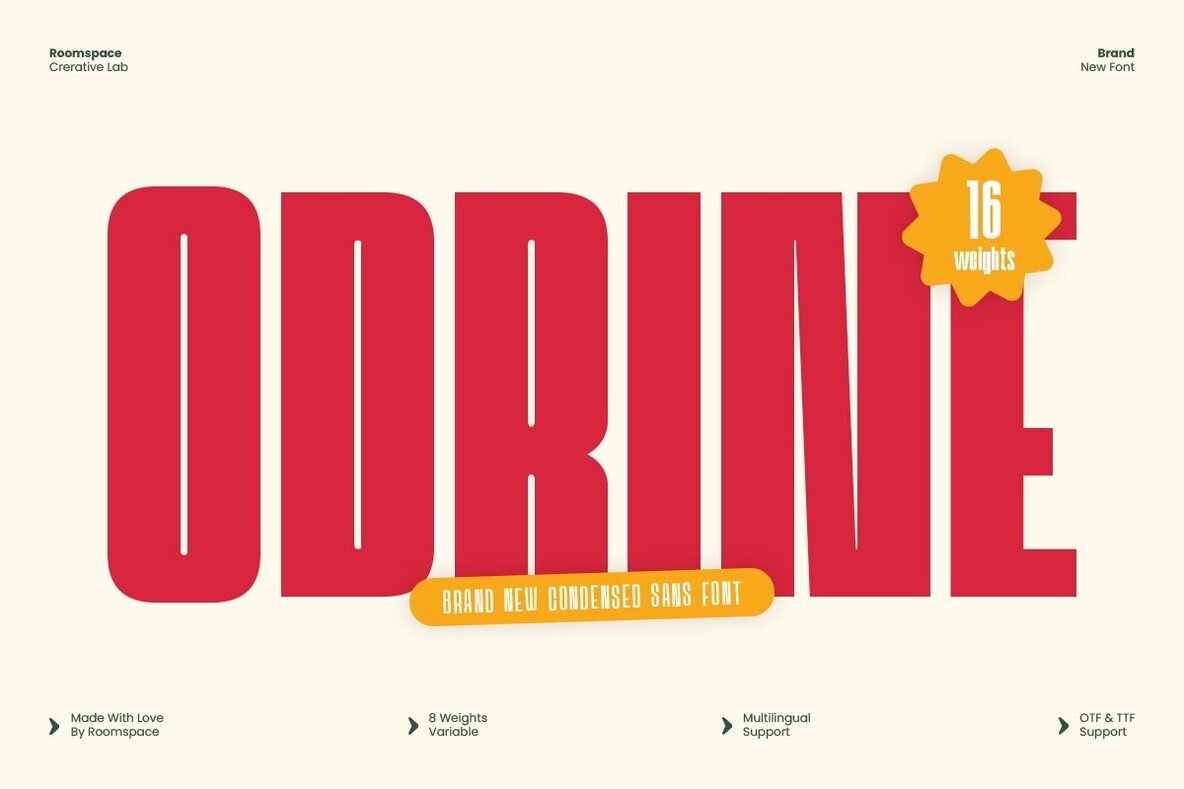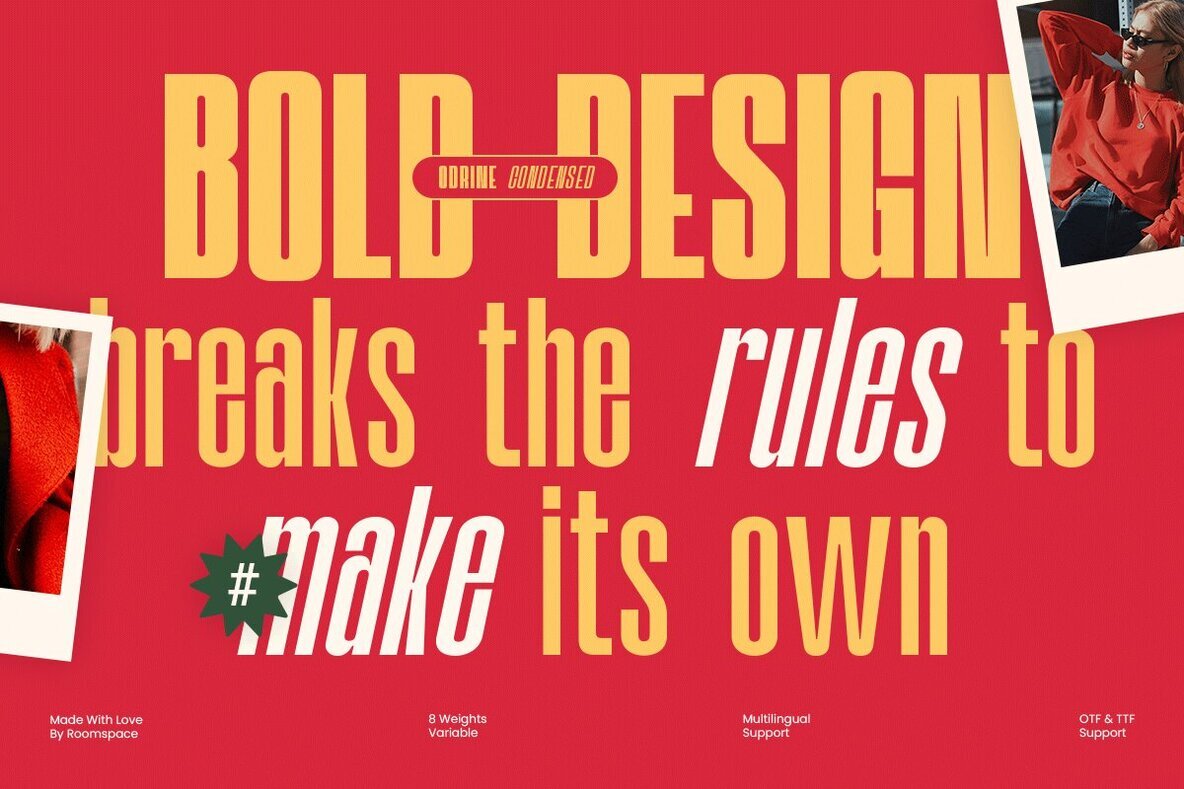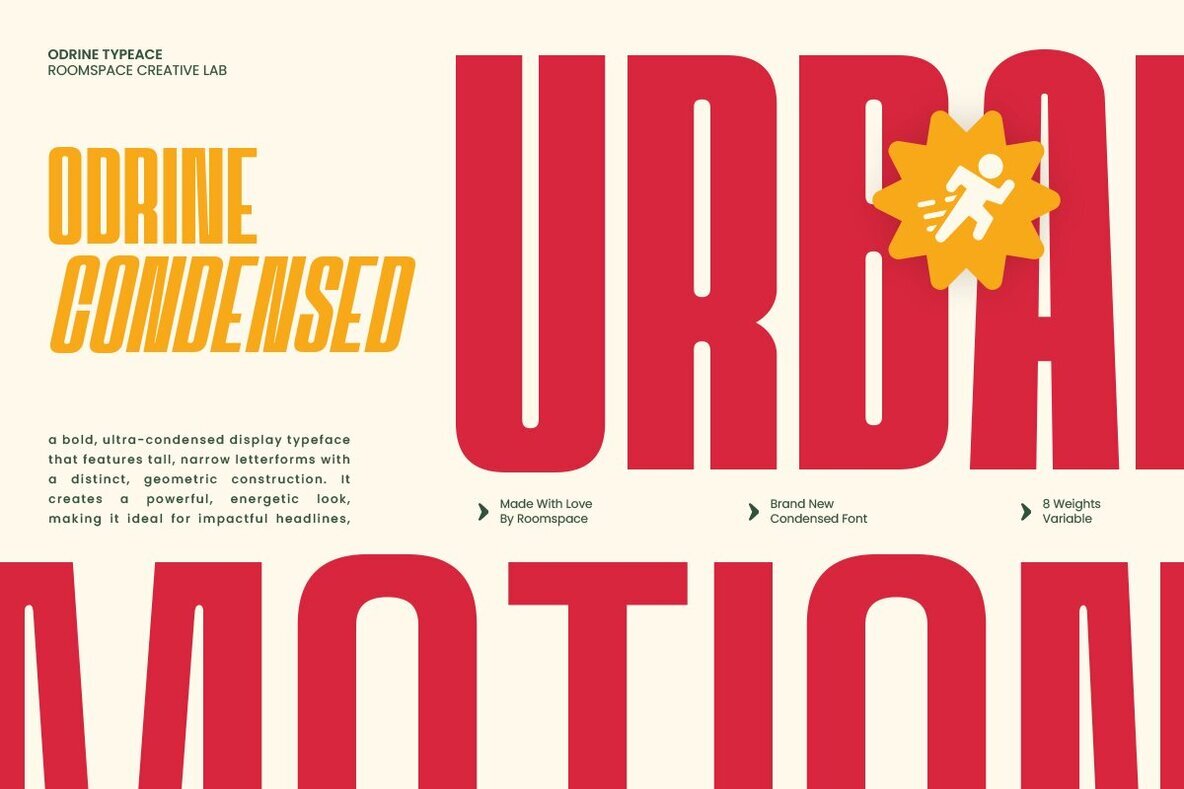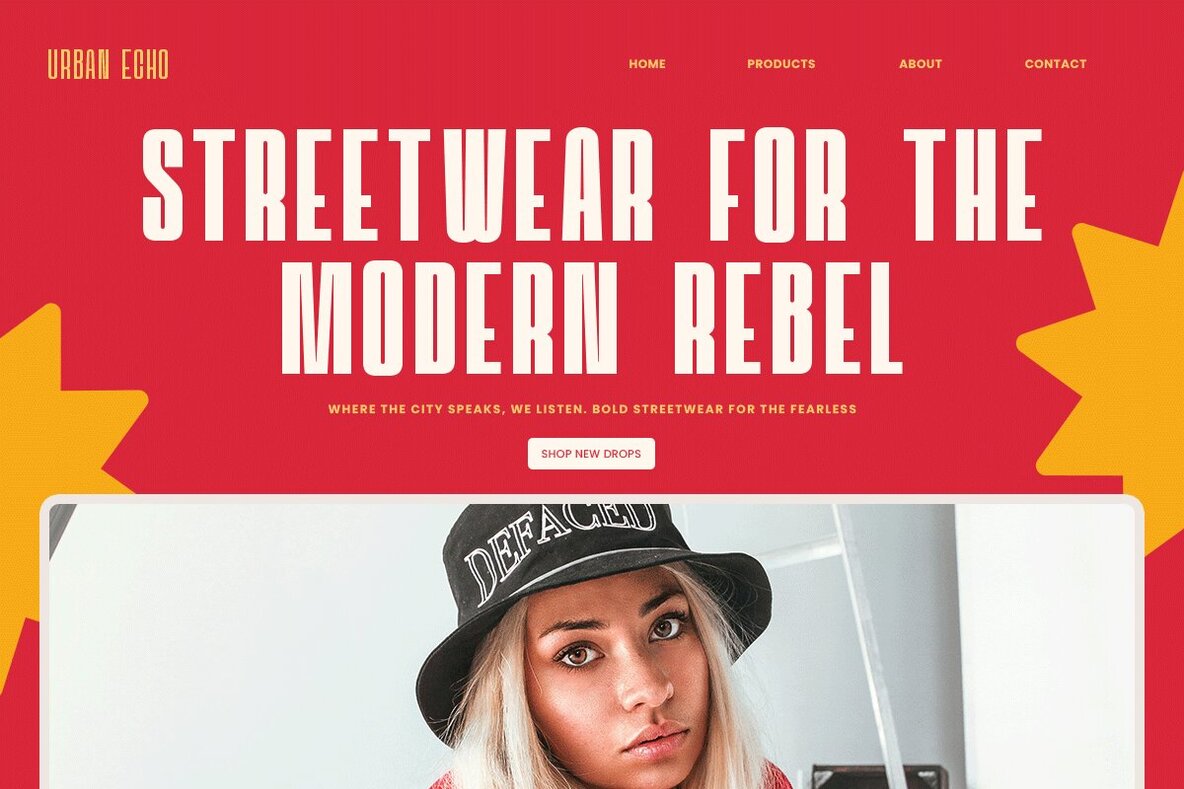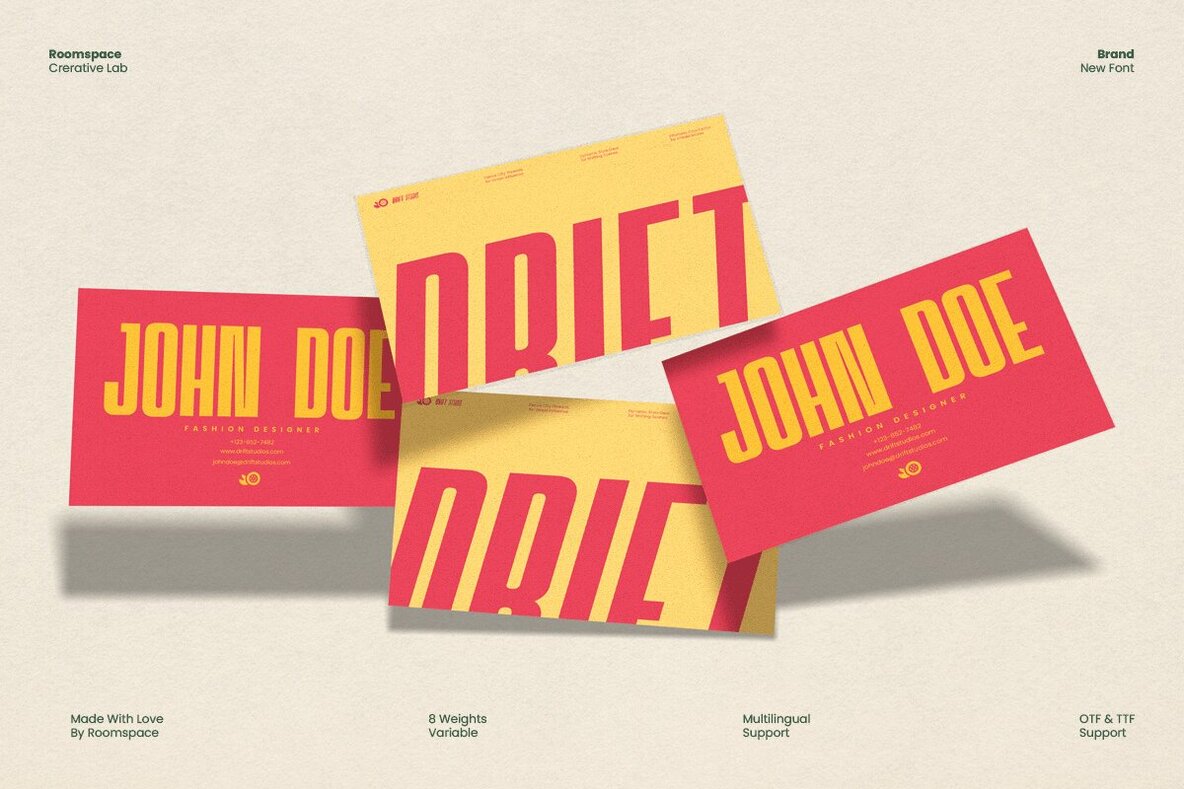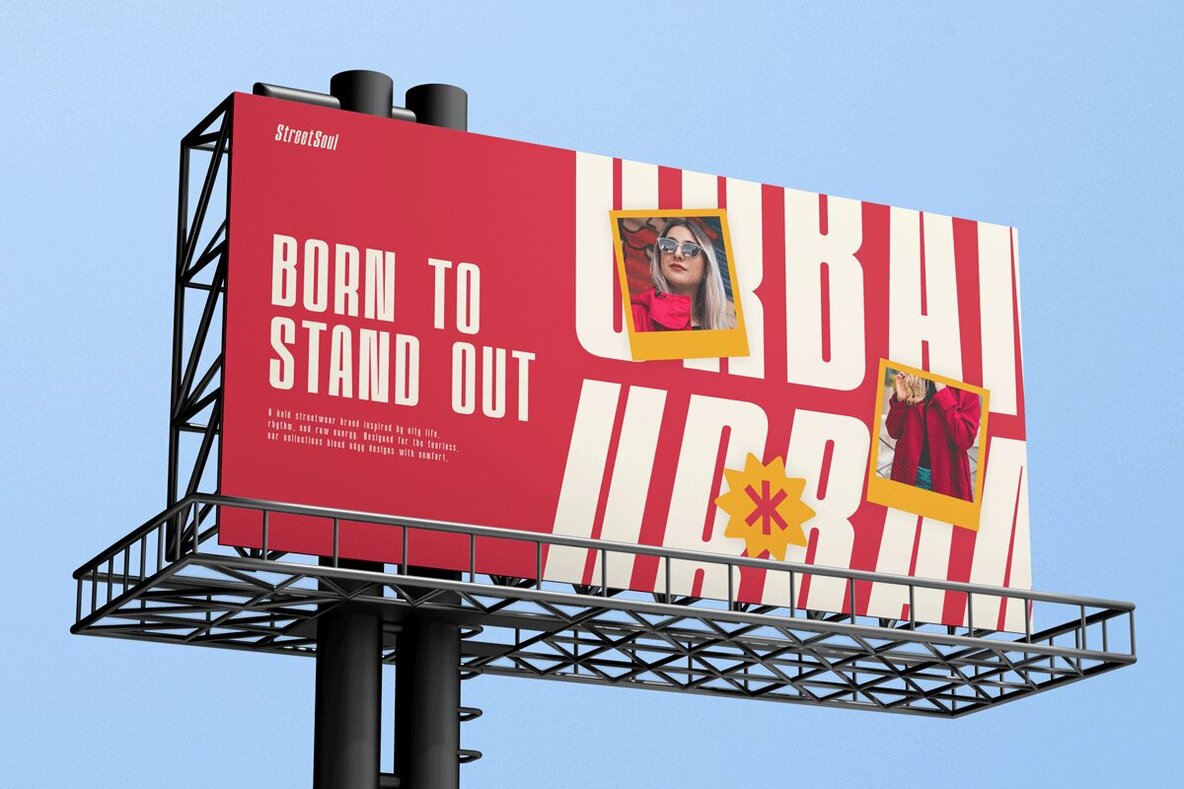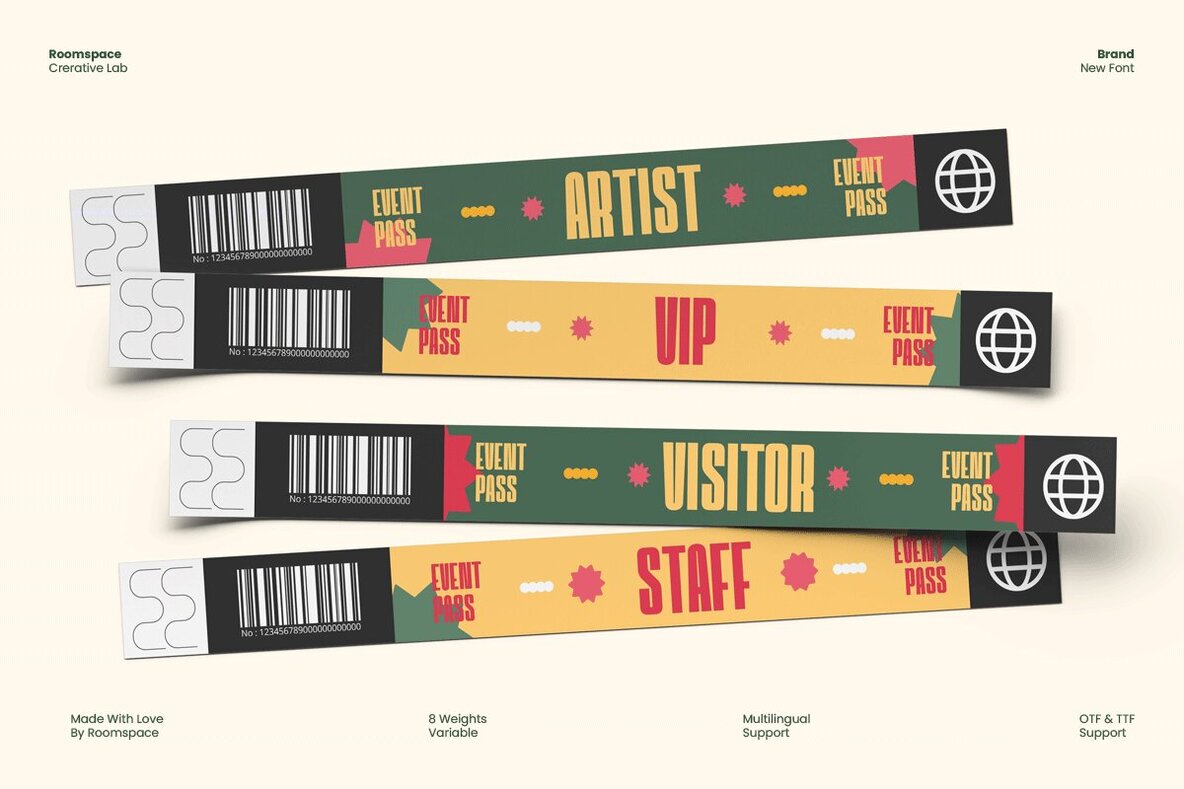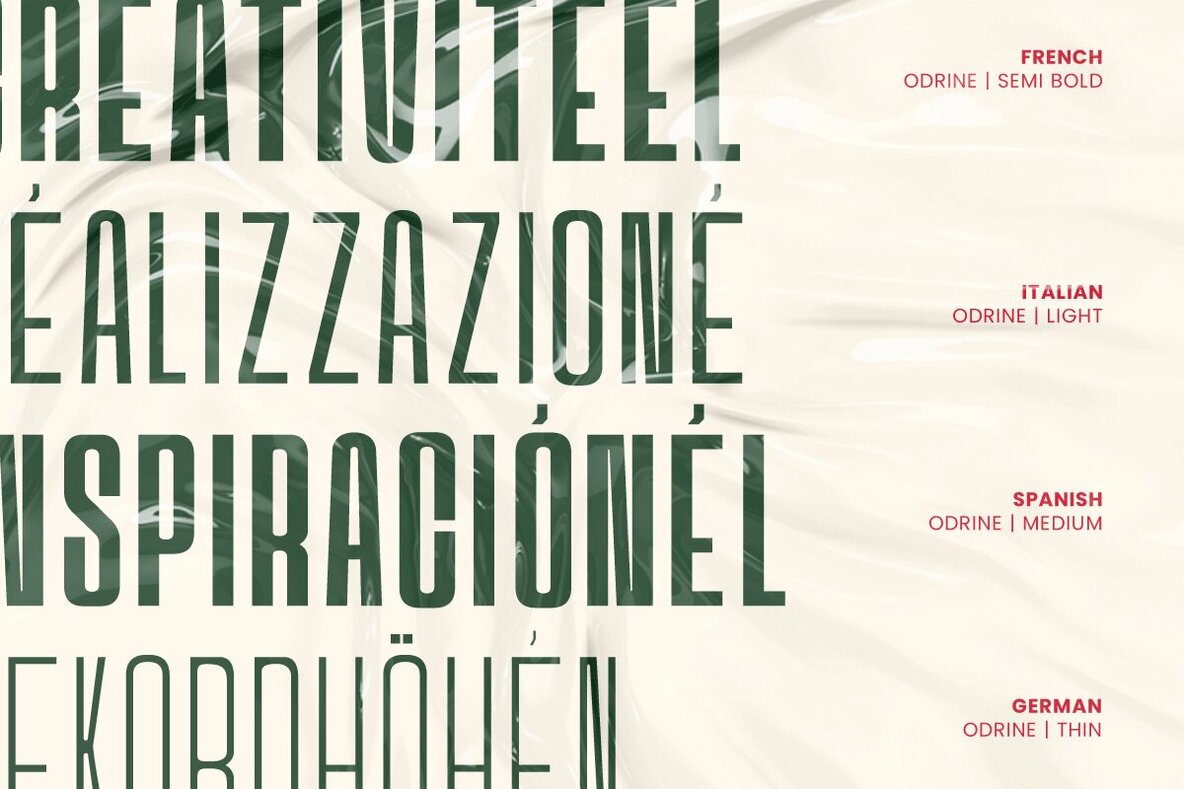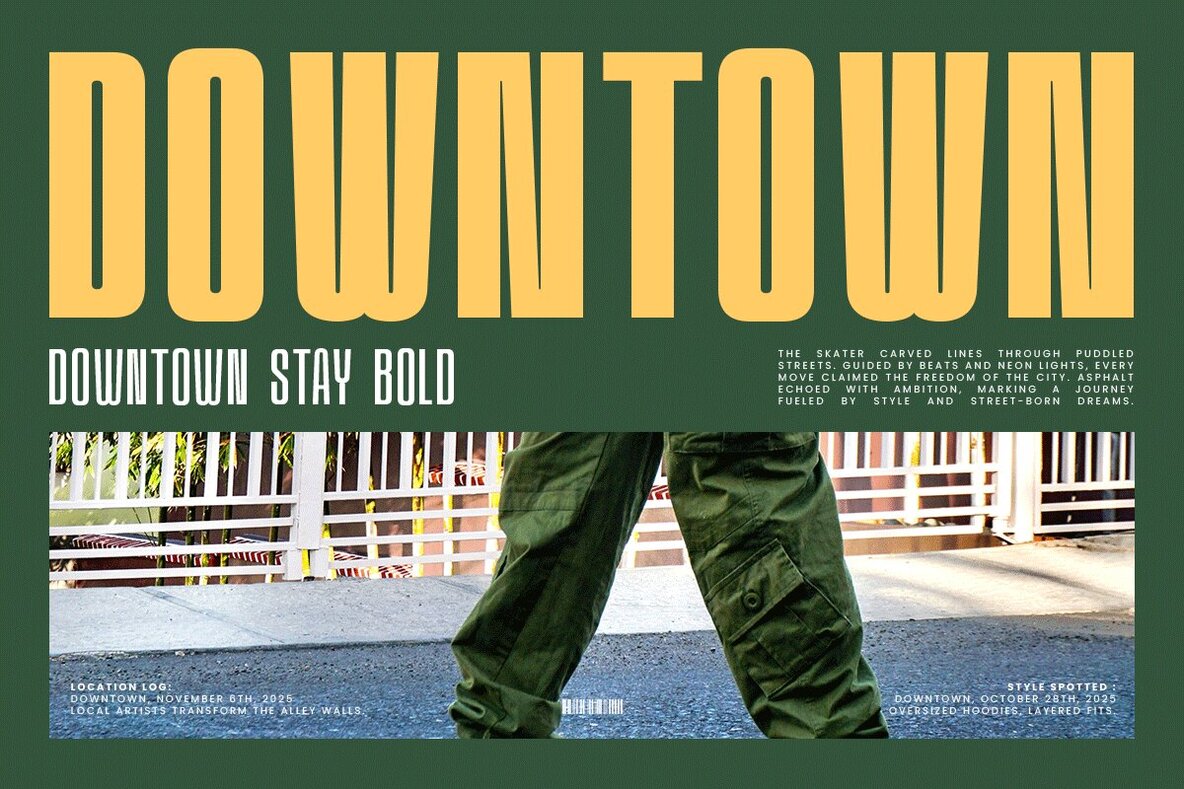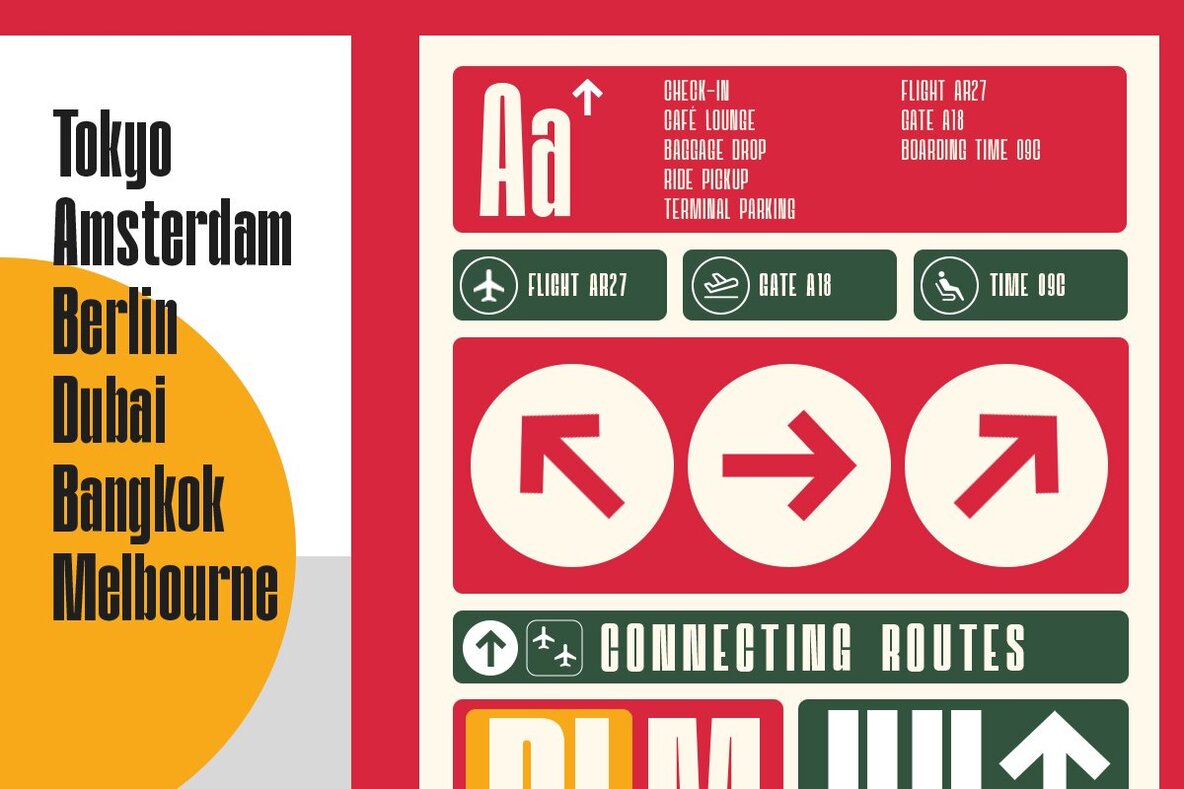
Odrine Font
Odrine brings together retro inspiration and modern functionality in a condensed sans typeface designed for standout branding and display work. With a distinctly geometric structure and vertical stress, Odrine provides crisp clarity across a range of projects. Its cohesive 16-weight family supports flexible type hierarchy, making it an excellent choice for editorial layouts and advertising campaigns where both character and legibility are essential. This typeface offers broad multilingual coverage and precise kerning, tailored for professionals who demand control and finesse in typography. Variable font support ensures seamless adaptation to any project. Alternate glyphs and PUA encoding further enrich creative possibilities, making Odrine a reliable tool for dynamic design environments.Odrine – Retro Modern Condensed Sans Typeface